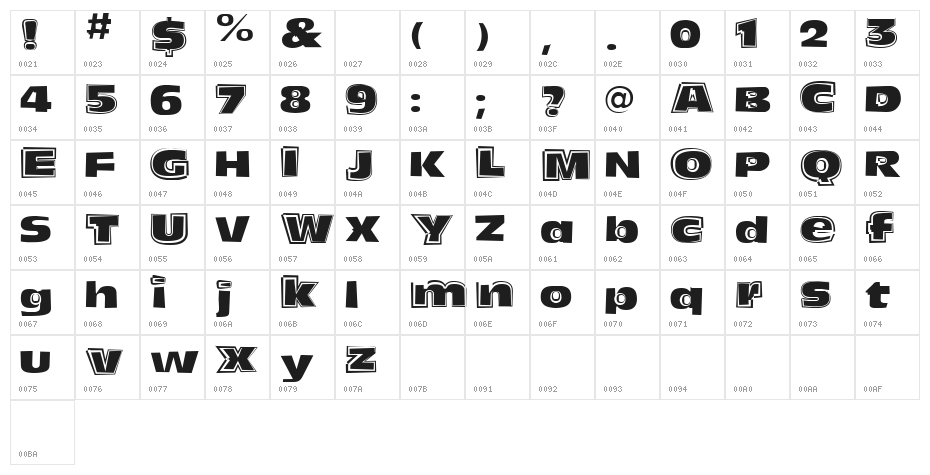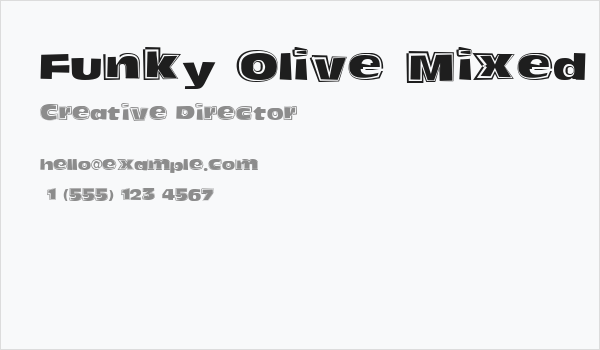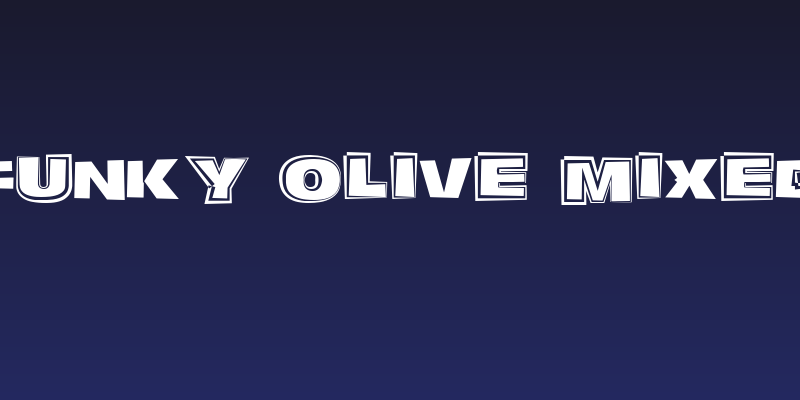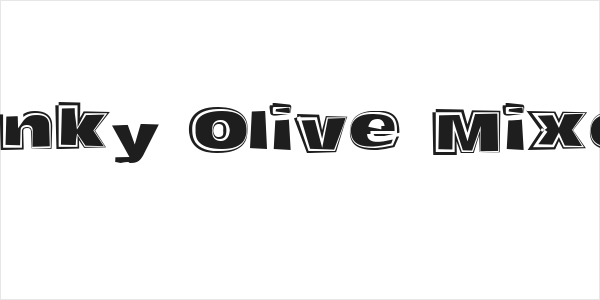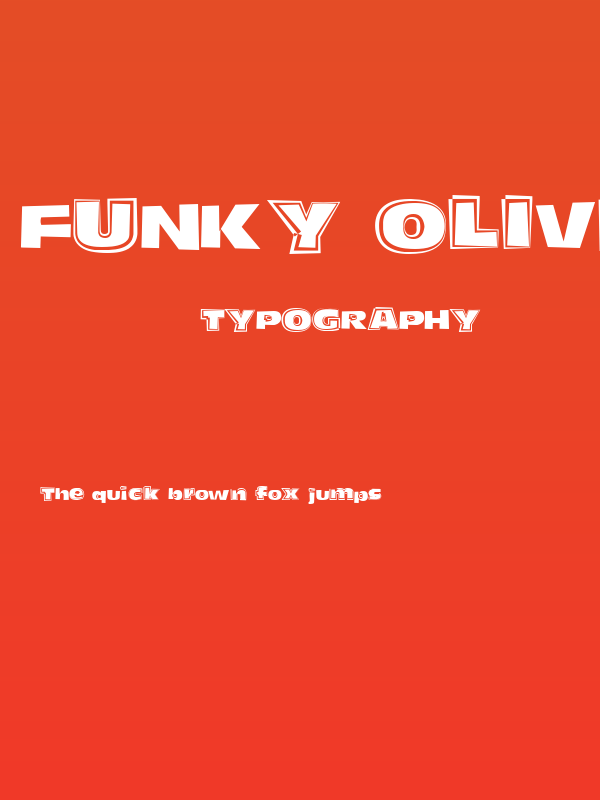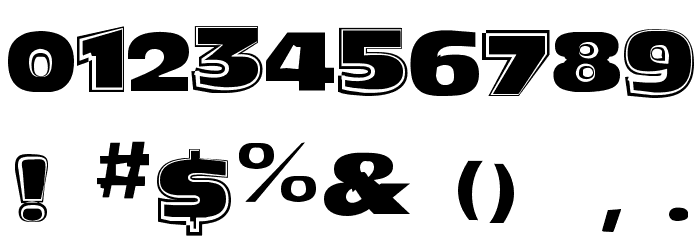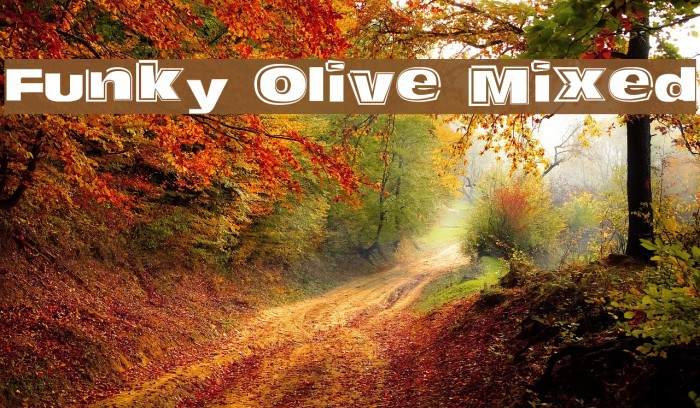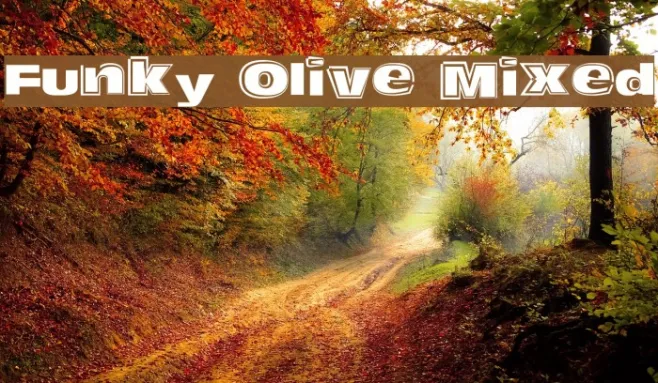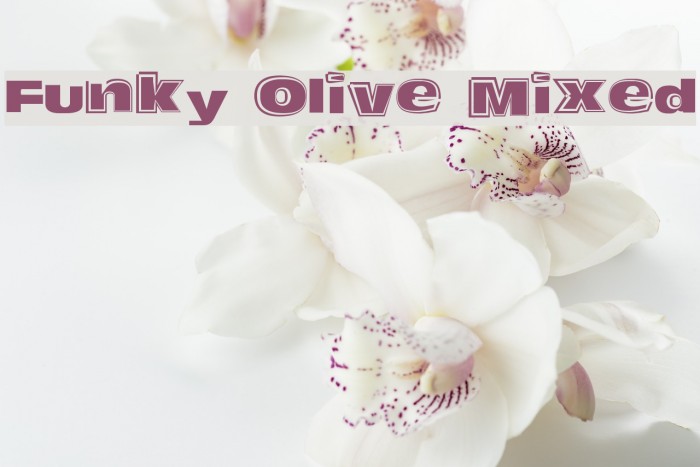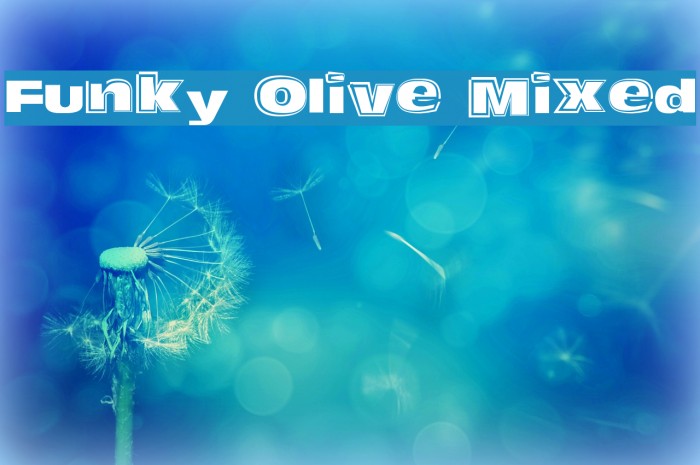
Funky Olive Mixed Font
Funky Olive Mixed Description
This font features a bold and playful design with a distinct outline that adds depth and dimension to each character. The uppercase letters are robust and commanding, while the lowercase letters maintain a consistent style with a slightly softer edge. The numbers are equally bold, ensuring they stand out in any context. Special characters are designed with the same attention to detail, making them perfect for creative projects. The font's unique style is both modern and retro, making it versatile for various design needs.
| Overall Style | Modern, Retro |
| Proposed Projects | Ideal for posters, logos, headlines, and any project requiring a bold, eye-catching typeface. |